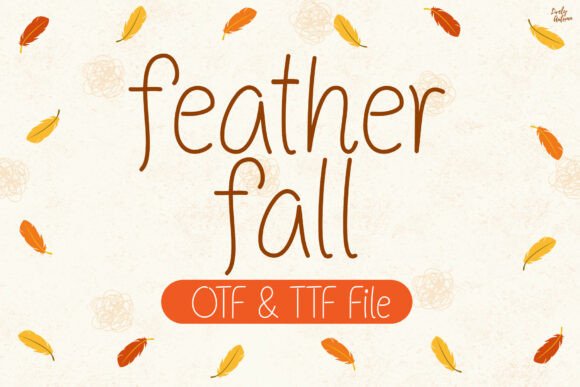
Introducing Featherfall Font: The Perfect Handwritten Font for Your Personal Projects
Are you a designer or crafter looking for a unique and charming font to add a personal touch to your projects? Look no further than Featherfall Font, a cute and thin handwritten font that’s perfect for a variety of easy-going designs. In this article, we’ll take a closer look at Featherfall Font, its features, and how you can use it to elevate your designs.
What is Featherfall Font?
Featherfall Font is a beautiful, handwritten font that’s characterized by its thin and delicate strokes. The font has a charming, whimsical feel that’s perfect for designers and crafters who want to add a personal touch to their projects. Whether you’re working on a DIY craft project, a blog, or a social media graphic, Featherfall Font is sure to make your design stand out.
Key Features of Featherfall Font
So, what makes Featherfall Font so special? Here are some of its key features:
- Cute and playful: Featherfall Font has a playful, childlike charm that’s perfect for designs that require a lighthearted touch.
- Thin and delicate: The font’s thin strokes give it a delicate, airy feel that’s perfect for designs that require a subtle touch.
- Handwritten: Featherfall Font is a handwritten font, which gives it a personal and unique feel.
- Easy to read: Despite its thin strokes, Featherfall Font is easy to read, making it perfect for designs that require a lot of text.
How to Use Featherfall Font
Featherfall Font is a versatile font that can be used in a variety of designs, including:
- DIY craft projects: Featherfall Font is perfect for DIY craft projects, such as handmade cards, gift tags, and scrapbooking.
- Blogs and social media: The font is also great for blogs and social media graphics, where you want to add a personal touch to your content.
- Personal stationery: Featherfall Font is perfect for personal stationery, such as letterheads, notecards, and journals.
- Branding and packaging: The font can also be used for branding and packaging designs, where you want to create a unique and memorable brand identity.
Tips for Using Featherfall Font
Here are some tips for using Featherfall Font effectively:
- Use it sparingly: Featherfall Font is a delicate font, so it’s best to use it sparingly to avoid overwhelming your design.
- Pair it with bold fonts: Pair Featherfall Font with bold fonts to create contrast and make your design stand out.
- Experiment with colors: Featherfall Font looks great in a variety of colors, so don’t be afraid to experiment and find the perfect color for your design.
Featherfall Font is a beautiful, handwritten font that’s perfect for designers and crafters who want to add a personal touch to their projects. With its thin and delicate strokes, Featherfall Font is sure to make your design stand out. Whether you’re working on a DIY craft project, a blog, or a social media graphic, Featherfall Font is a great choice. So why not give it a try and see how it can elevate your designs?
In conclusion, Featherfall Font is a versatile and charming font that’s perfect for a variety of easy-going designs. Its key features, such as its cute and playful feel, thin and delicate strokes, and handwritten style, make it a great choice for designers and crafters. By following the tips outlined in this article, you can use Featherfall Font effectively and create beautiful designs that showcase your personality and style.